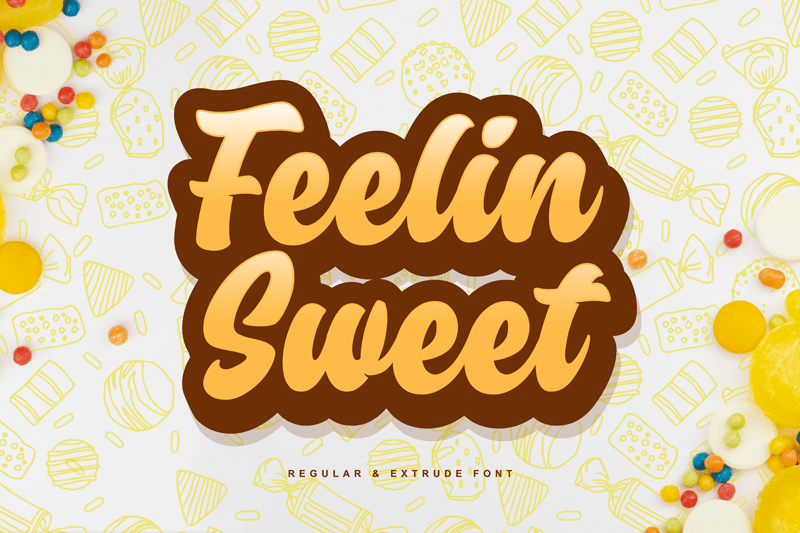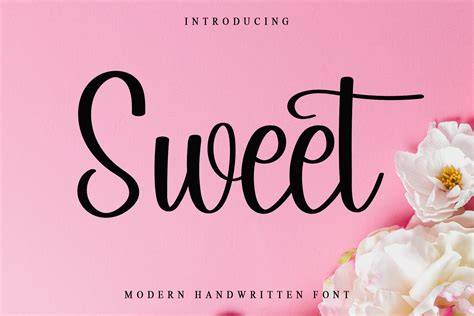
Finding The Perfect Sweet Fonts For Your Design
Are you looking for the perfect sweet fonts for your design project? Whether you're creating a logo, a website, or a physical product, you want to make sure that the font you choose is appropriate and attractive. With so many different fonts available, it can be difficult to know where to start. In this article, we'll discuss the different types of sweet fonts that are available, provide tips for choosing the right font, and share some of the best sweet fonts available today.
Types of Sweet Fonts
Sweet fonts can be divided into two main categories: script and sans serif. Script fonts are those that have a more decorative and calligraphic appearance, while sans serif fonts have a more modern, minimalistic look. Within each of these categories, there are a variety of different styles and variations. For example, script fonts can be formal, casual, or even whimsical. Sans serif fonts can range from blocky and geometric to more refined and elegant.
Tips for Choosing the Right Sweet Font
When it comes to choosing the right sweet font for your project, there are a few things to keep in mind. First, consider the context in which your design will be used. For example, if you're creating a logo for a business, you may want to use a more formal script font. On the other hand, if you're designing a website for a fun and playful brand, you might choose a more whimsical script font. You should also consider the size and weight of the font. A bold font can make a statement, while a light font can be more subtle. Finally, consider the readability of the font. Make sure that your text is easily readable by your intended audience.
Best Sweet Fonts Available Today
Now that you know what to look for in a sweet font, it's time to find one that fits your project. Here are some of the best sweet fonts available today:
- Museo Slab – A classic serif font with a modern twist.
- Gill Sans – A geometric sans serif font with a sleek and modern feel.
- Bebas Neue – A bold sans serif font with a contemporary feel.
- Lobster – A playful script font with a casual, hand-written feel.
- Playfair Display – An elegant serif font with a traditional and sophisticated feel.
Choosing the perfect sweet font for your design project can be a daunting task. With so many options available, it's important to consider the context of your project, the size and weight of the font, and the readability of the text. We hope that this article has helped you to understand the different types of sweet fonts available and given you some tips for choosing the right font for your project. Good luck with your search for the perfect font!